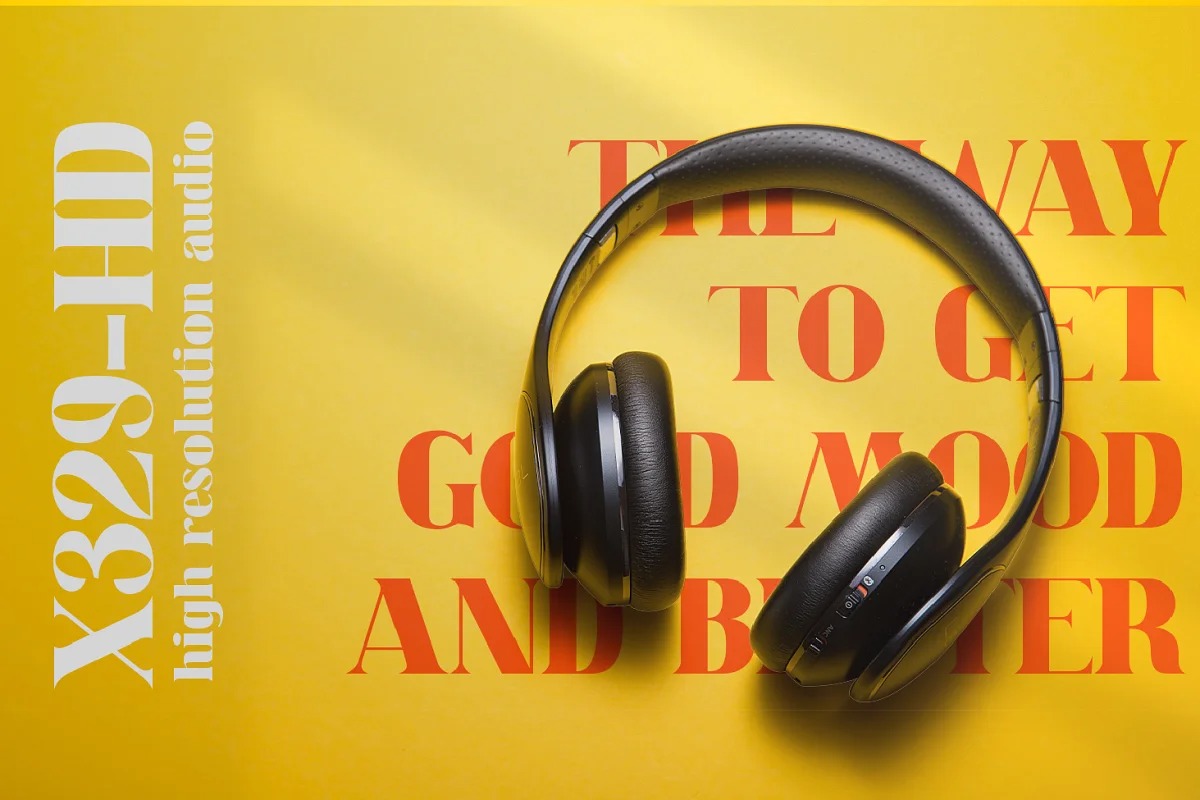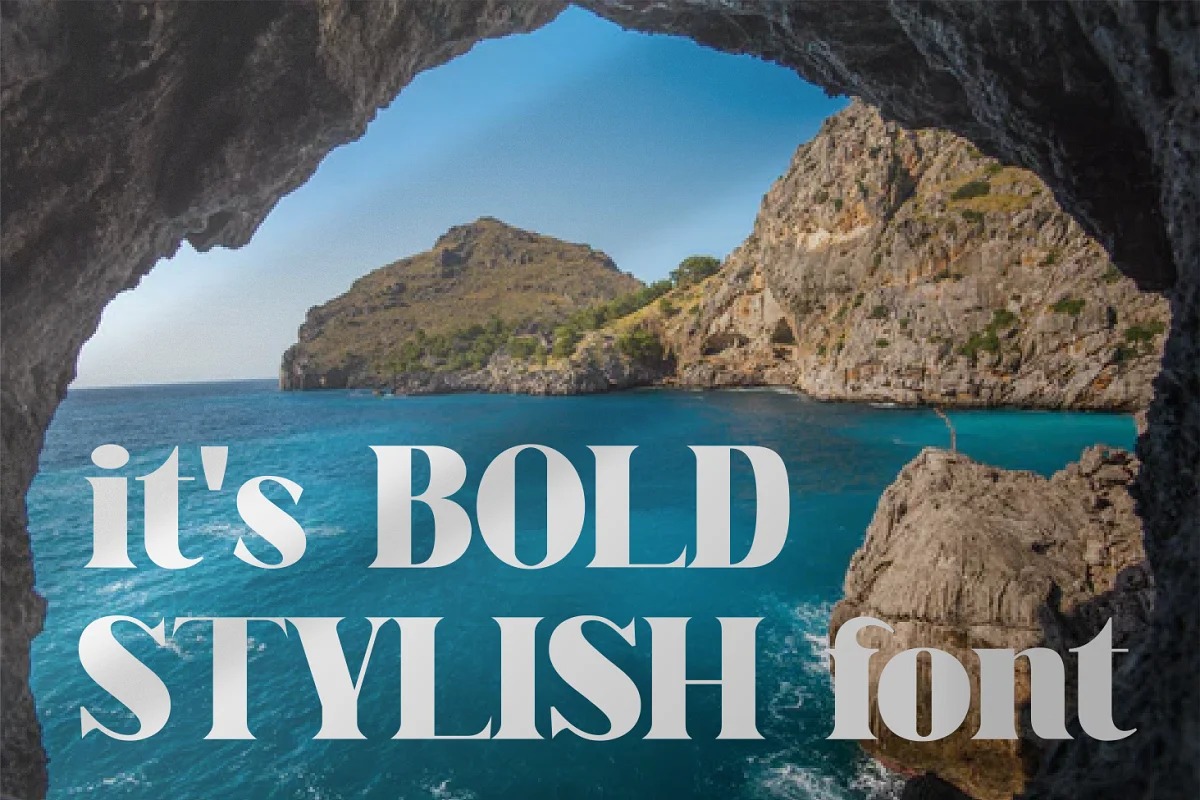
Bolderist Serif Font
This is a modern, elegant and bold serif typeface manufactured by zeenesia. Each curve is integral and has a point at extrema. You will get a smooth shape on each side. Bugaki is well-suited for advertising, branding, logotypes, packaging, titles, headlines and editorial design.